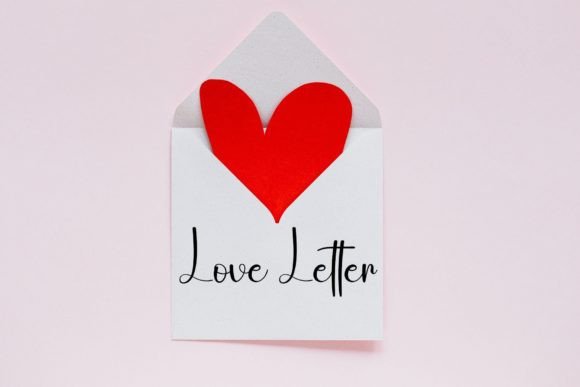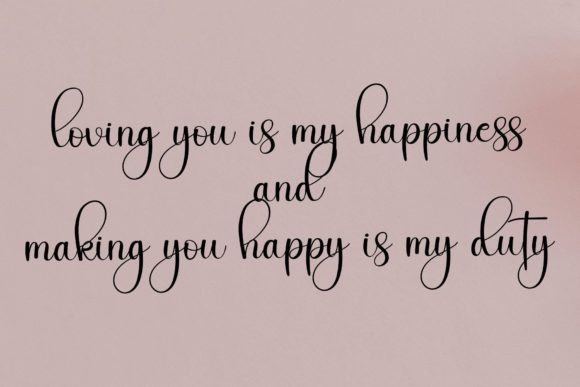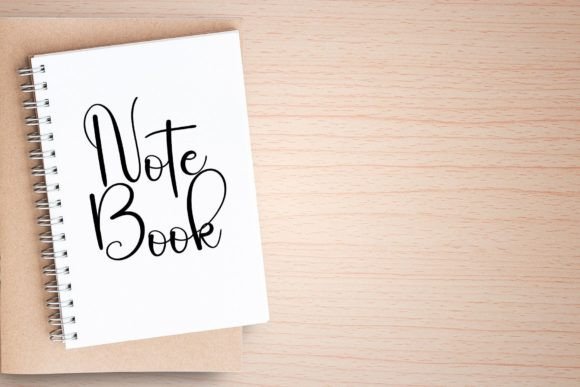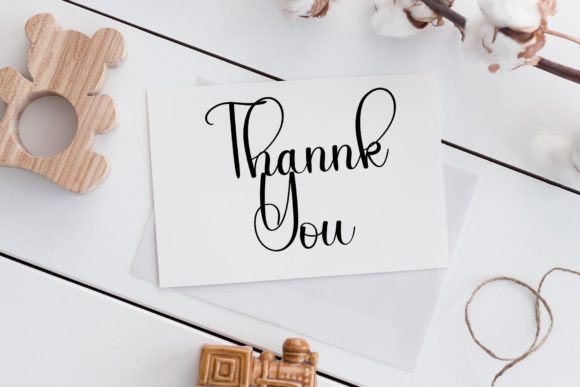
Introduction to Shaby Font
Shaby is a delicate handwritten font, carefully crafted for a cool and unique design.
This font can be used to write letters, invitations, food products, titles, and more .
Key Features of Shaby Font